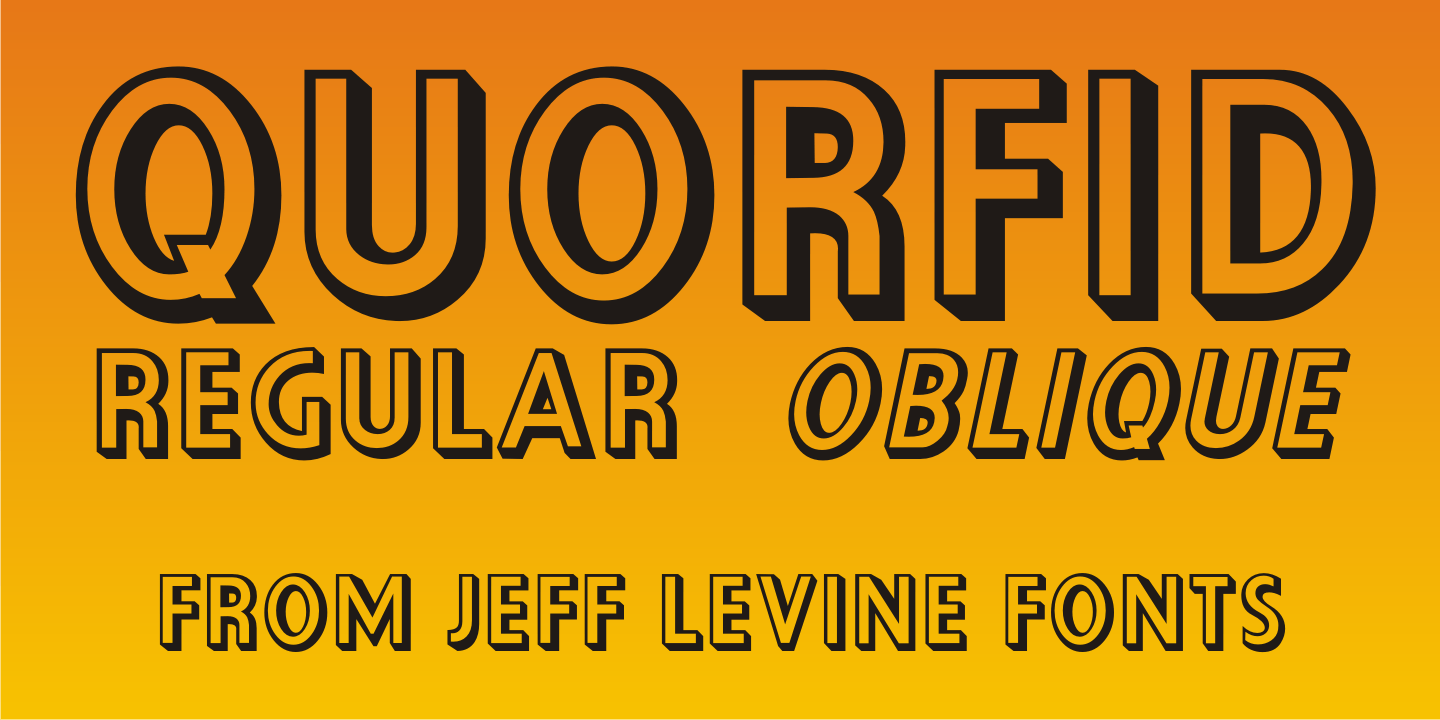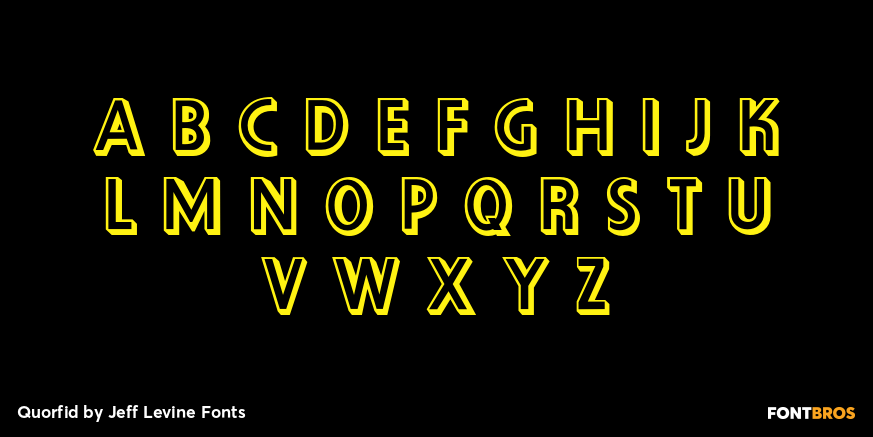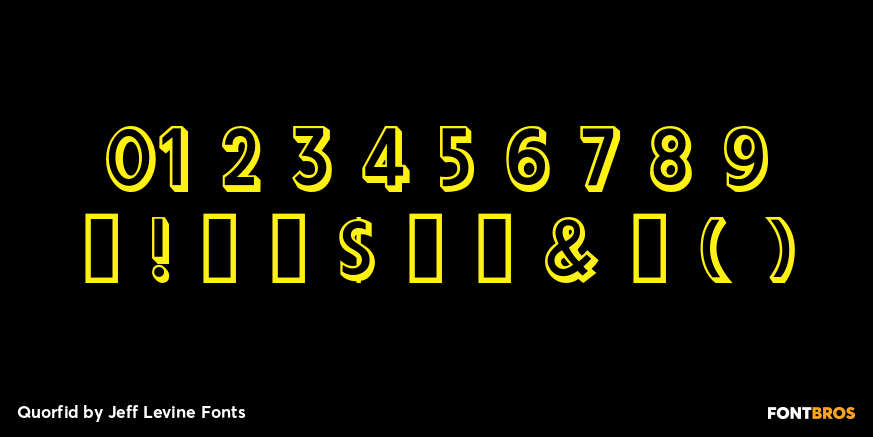
Quorfid
Quorfid JNL is Jeff's Levine's version of an old classic – Orplid. Especially popular in the 1950s, this cast shadow outline font has a decidedly hand-made look to it. From headlines to point-of-sale signage, it fits into all applications.
This font has a limited character set, including basic punctuation.